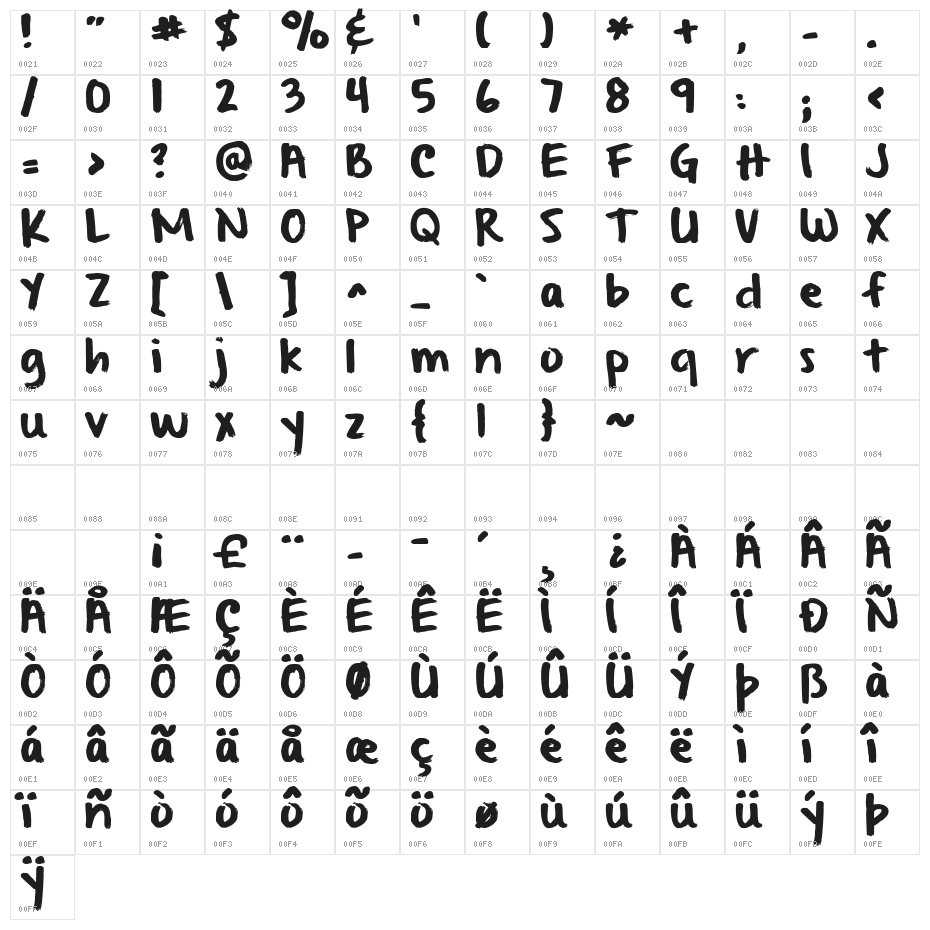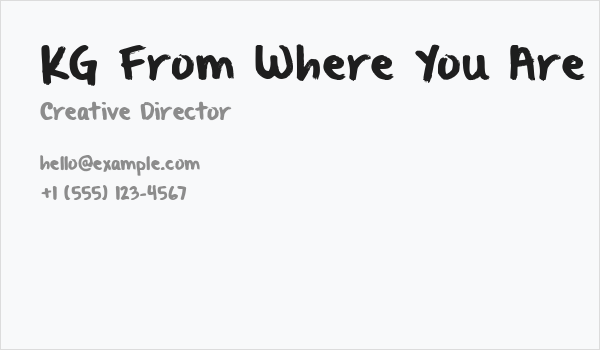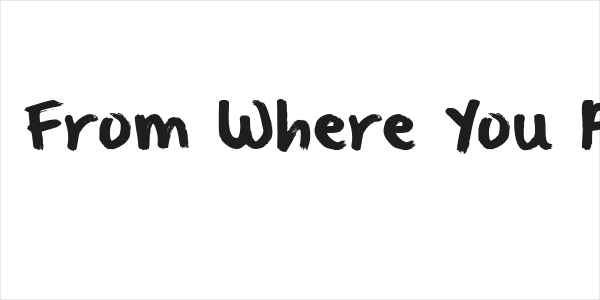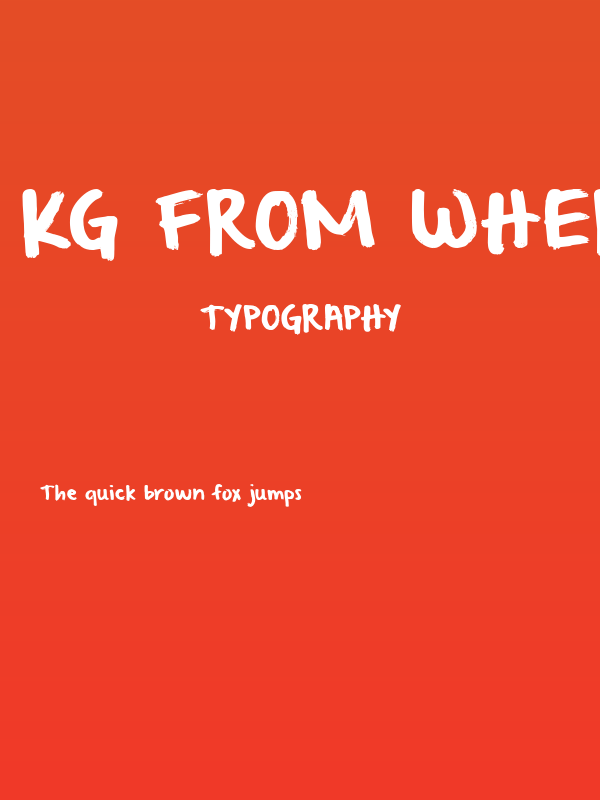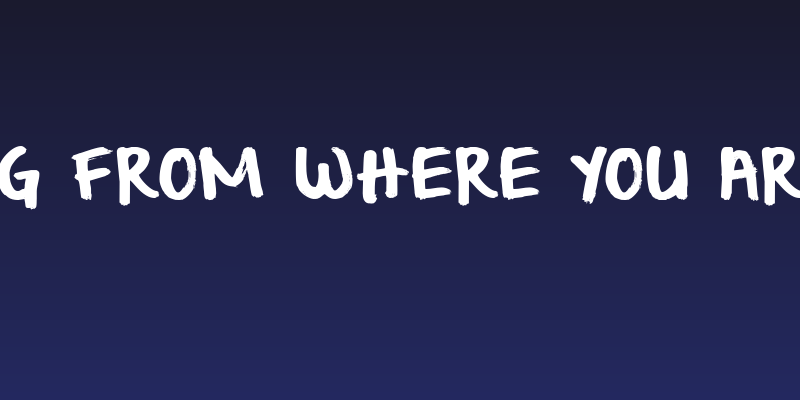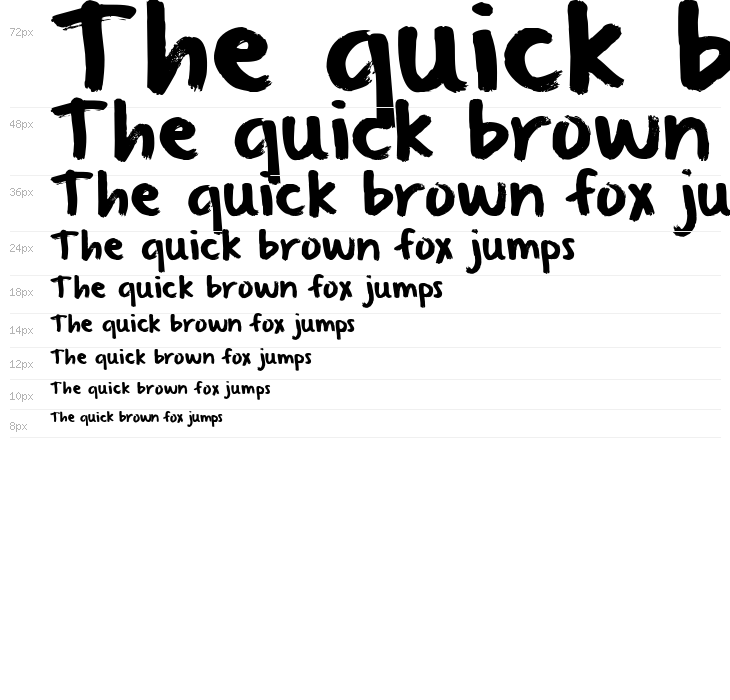
KG From Where You Are Font
KG From Where You Are Description
This font features a bold and expressive handwritten style, characterized by its thick, brush-like strokes that convey a sense of energy and spontaneity. The letters are uneven and slightly irregular, adding to the casual and informal feel. The uppercase and lowercase letters maintain a consistent style, with rounded edges and a playful appearance. Numbers and special characters follow the same aesthetic, ensuring a cohesive look across all text elements. This font's dynamic and artistic nature makes it ideal for projects that require a personal touch or a creative flair.
| Proposed Projects | Ideal for greeting cards, posters, social media graphics, and creative branding projects. |